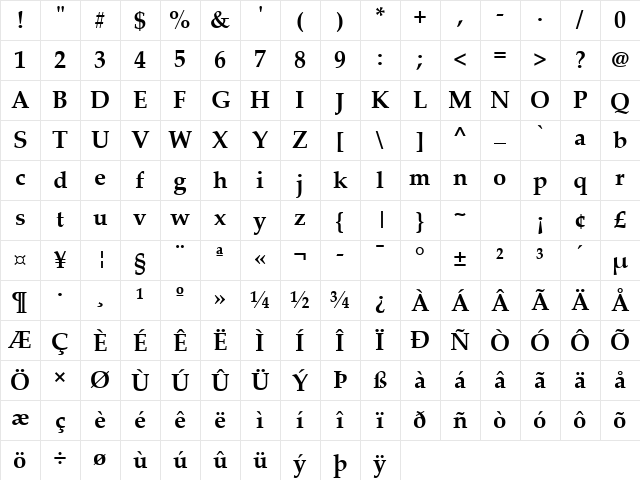
Palatino Linotype Bold
Foundry: LINOTYPE-HELL AG
Designer: Hermann Zapf
Design Context for Palatino Linotype
Palatino Linotype is a composed and adaptable typeface that performs quietly and consistently across a wide range of design contexts. Its bold stroke weight gives it real presence on the page.
Pro Tip: Use Palatino Linotype in both headline and body roles to test its range before committing to a single application.